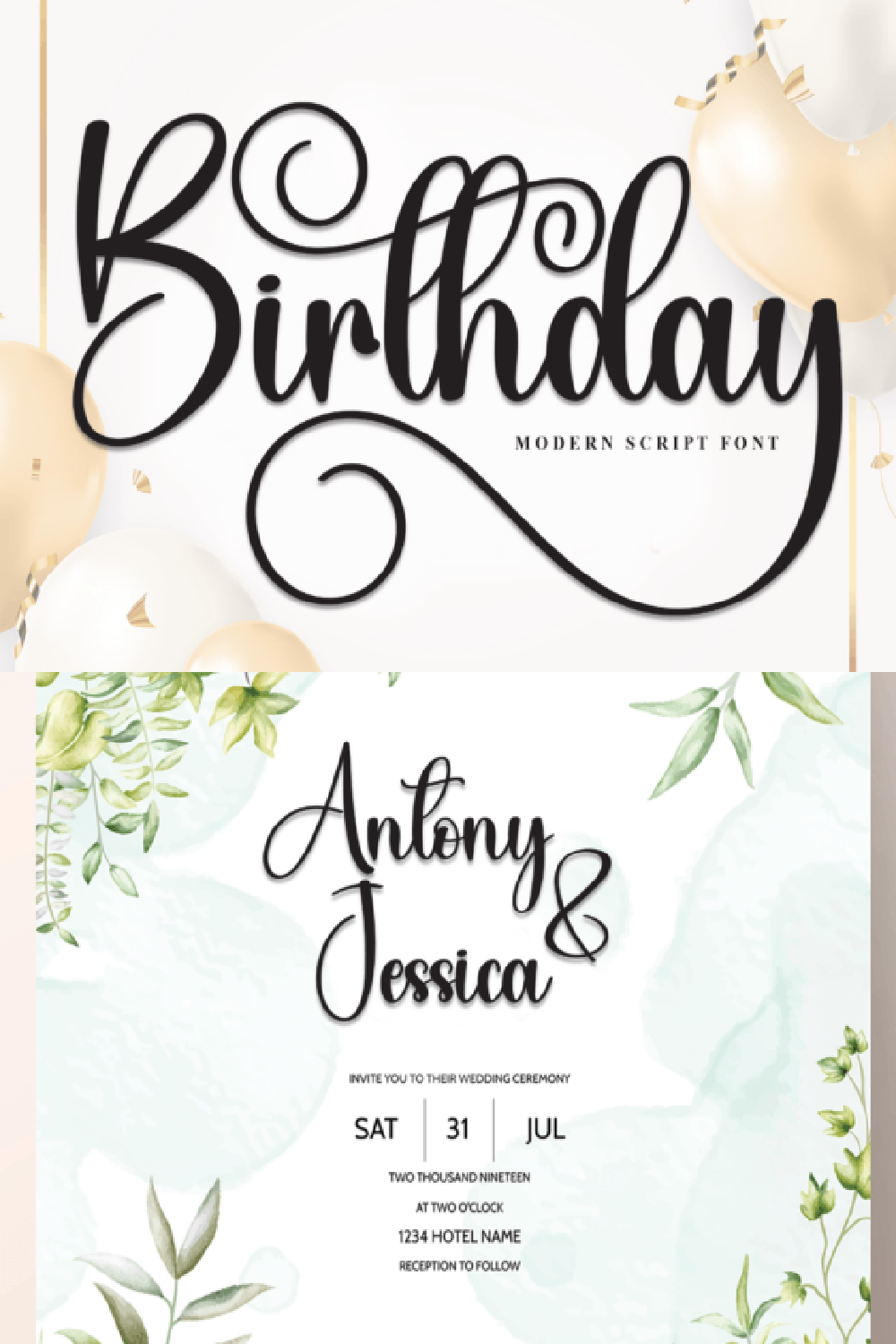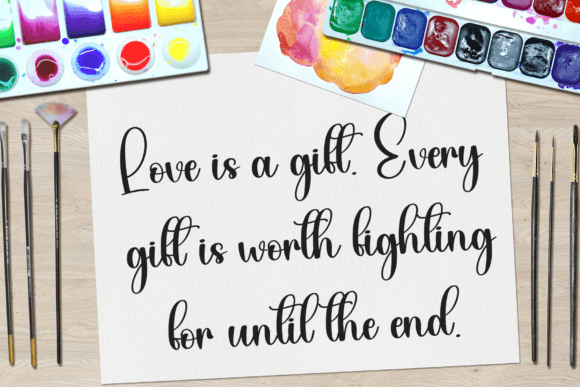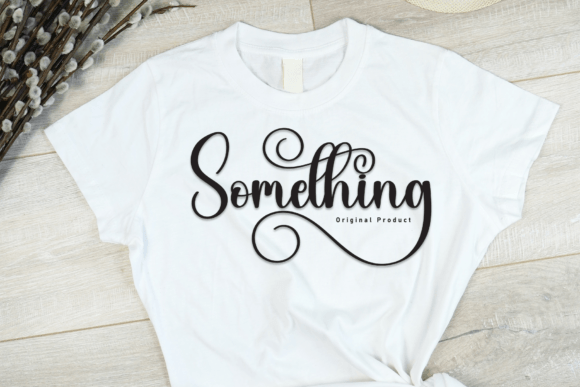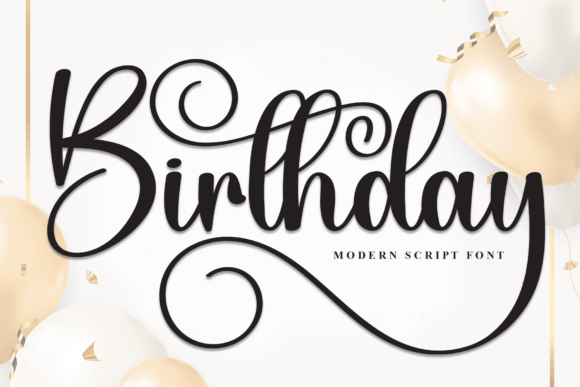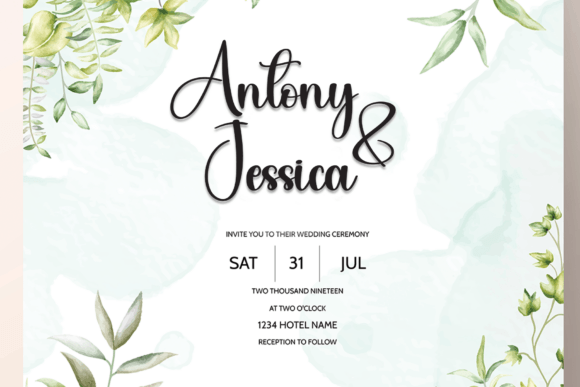
About the Birthday Font
Unleash your creativity with Birthday Font, a versatile font perfect for a wide range of applications. Birthday is a beautiful script font with flowing, hand-drawn letters. It has a cozy and elegant look, perfect for cards, invitations, or any design that needs a personal and stylish touch.